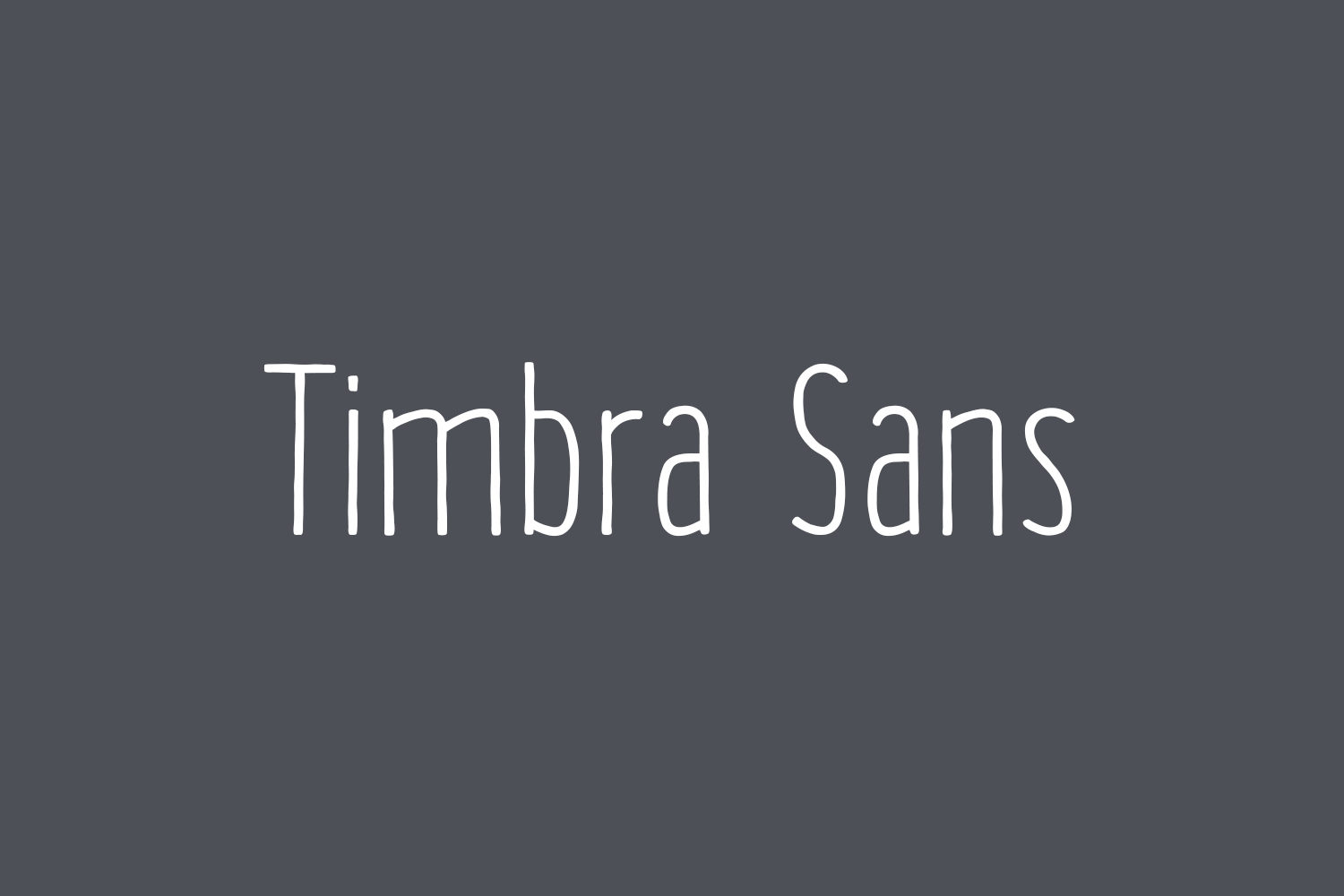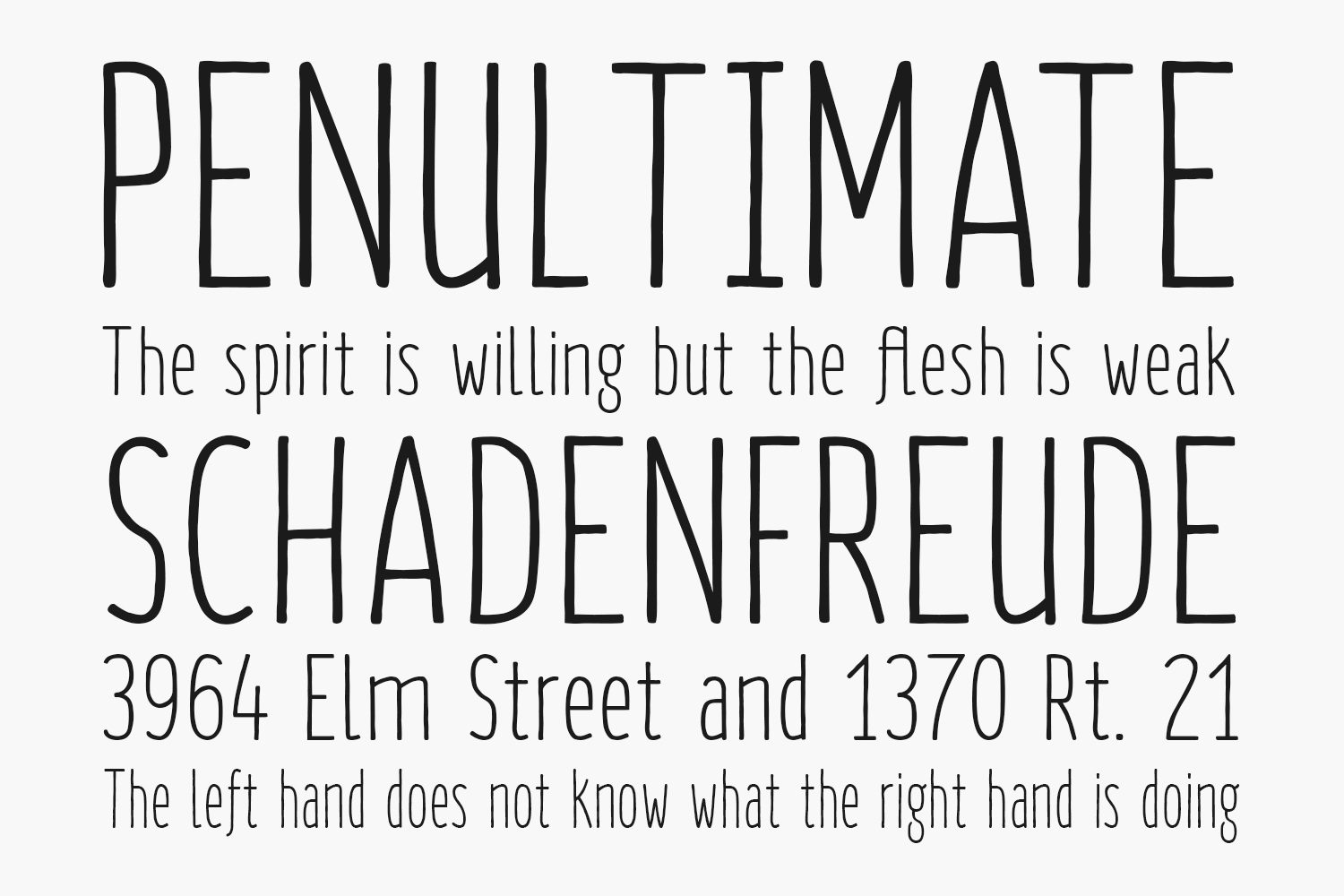
Timbra Sans Free Font is a handmade condensed sans-serif coming in two weights. The Fonts include 387 glyphs and support Basic Latin, Latin-1 Supplement and Latin-Extended A. In addition to that there are ligatures as well as open-type fractions.
Designed by Illunatic
Timbra Sans Regular The quick brown fox jumps over the lazy dog
Timbra Sans Bold The quick brown fox jumps over the lazy dog